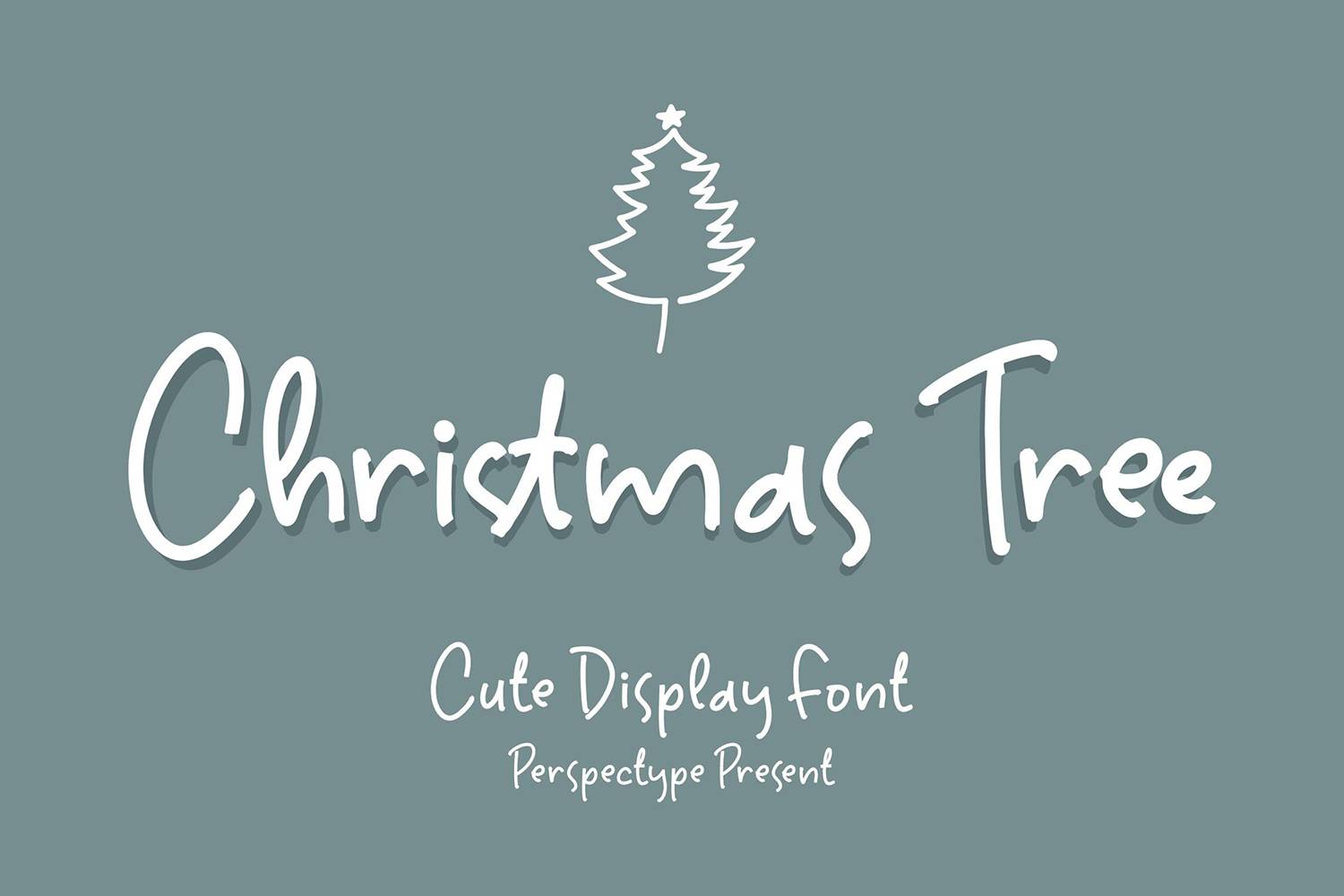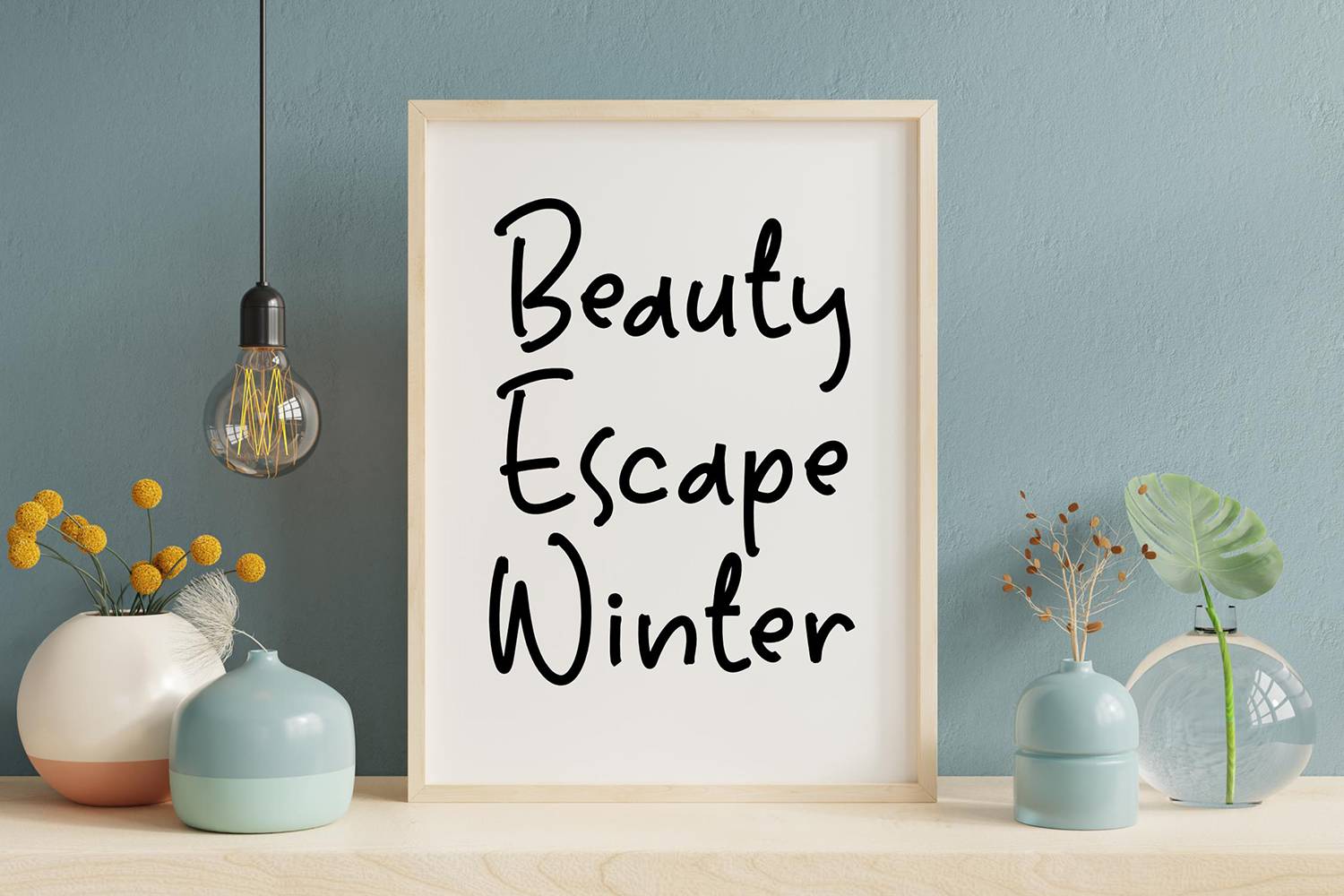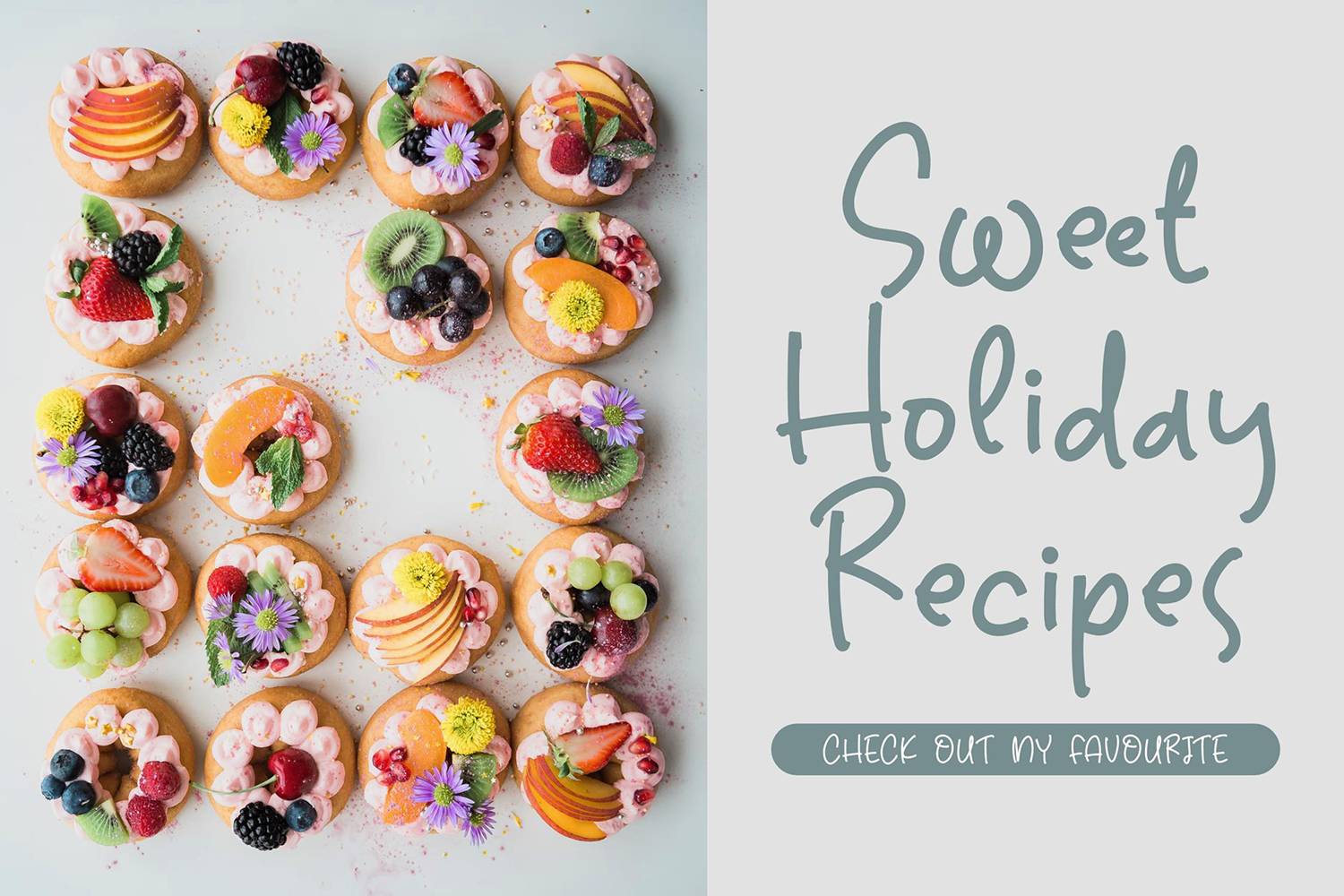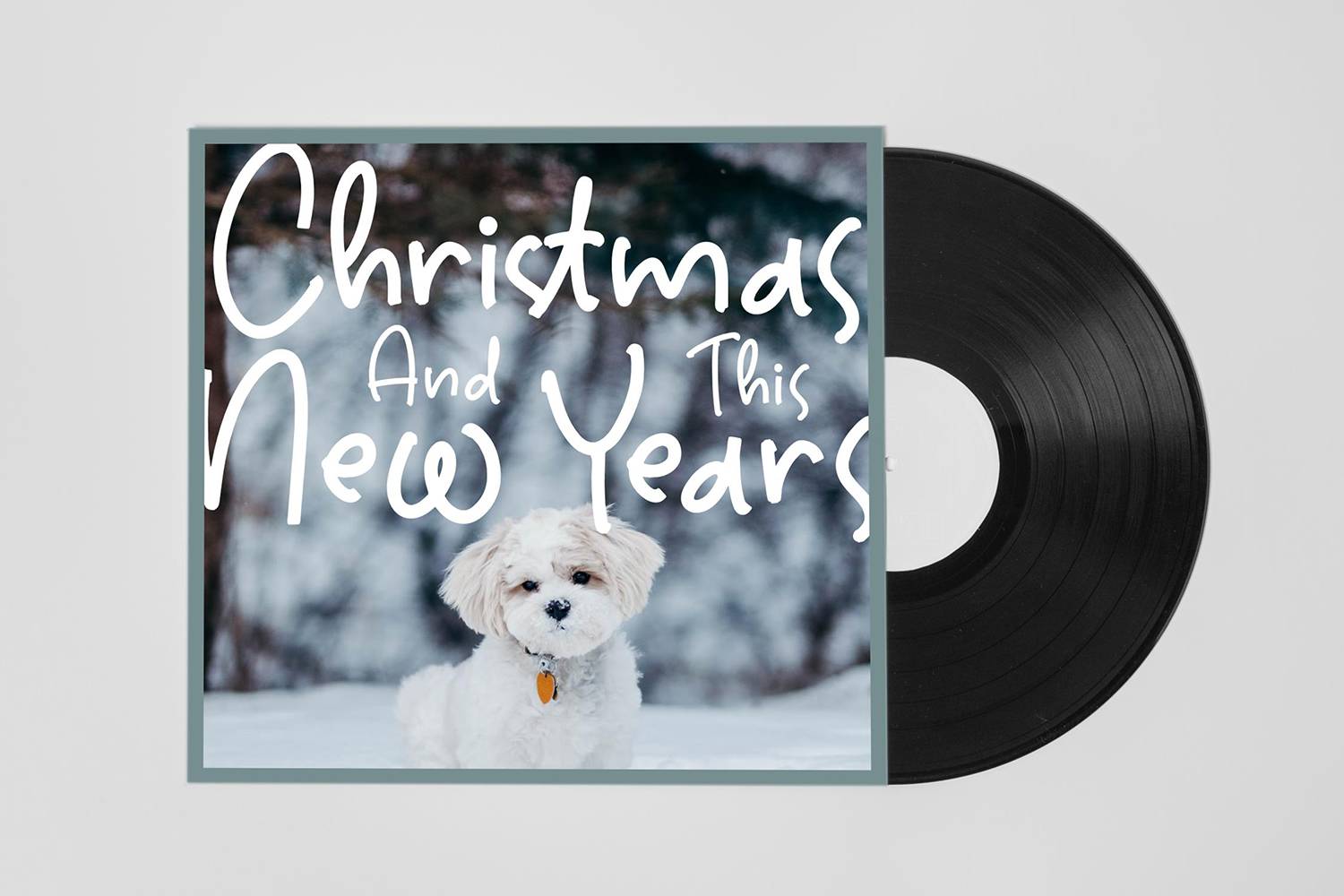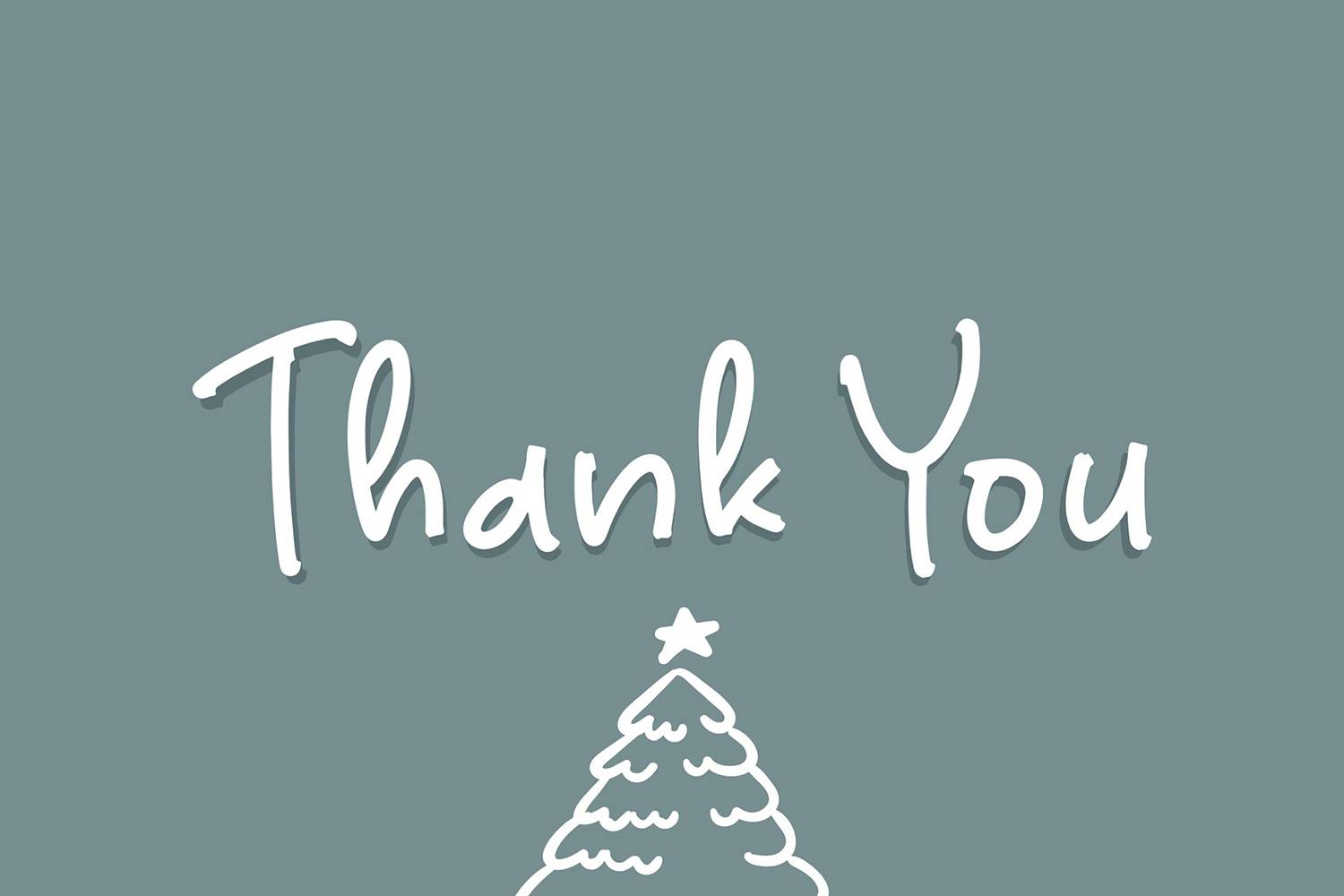
Christmas Tree Font is a playful and informal handwritten sans serif with a casual, friendly vibe. Its light weight and slightly uneven strokes give it an approachable, natural look that works well for fun, personal, or holiday-themed designs. This font is ideal for greeting cards, invitations, kids’ projects, and festive branding where a warm, hand-crafted feel is desired.
Christmas Tree Font
About Christmas Tree Font